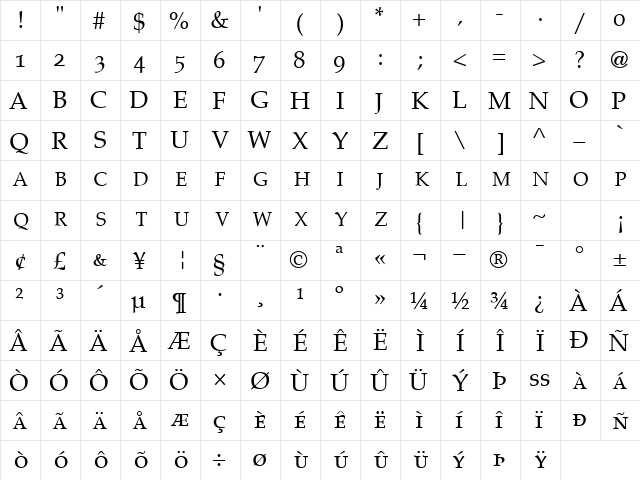
CriteriaOSSCapsSSK Regular
Design Context for CriteriaOSSCapsSSK Typeface
CriteriaOSSCapsSSK takes a measured approach to typography — its balanced proportions and neutral character make it a reliable workhorse for both digital and print work.